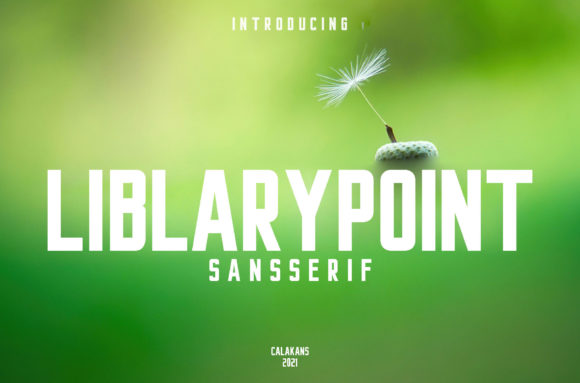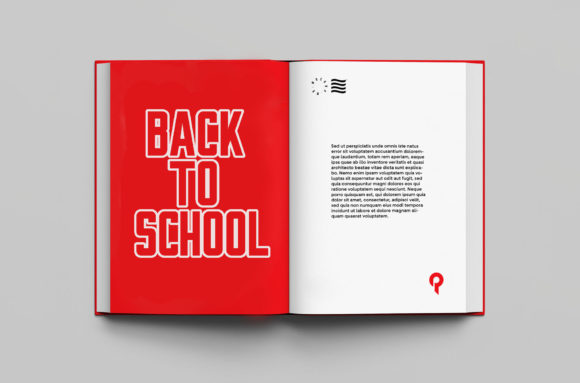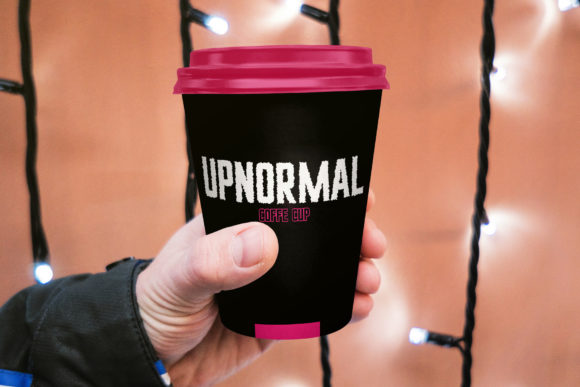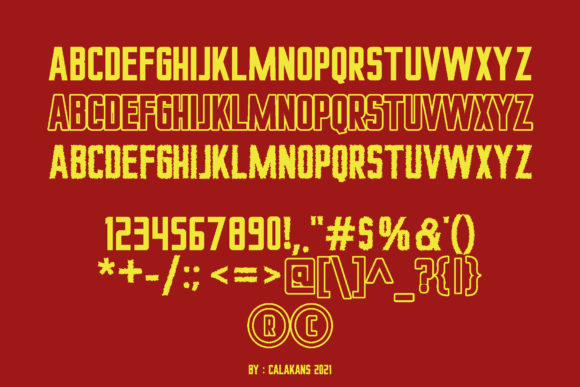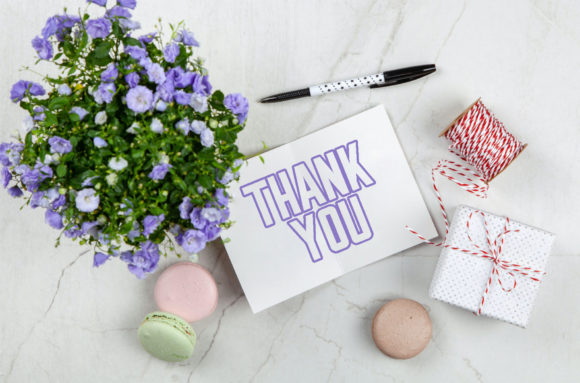
Introduction to Liblarypoint Font
As designers, we’ve all been there – staring at a blank canvas, trying to come up with the perfect font to elevate our creative project. The search for that perfect typography can be a daunting task, but what if I told you there’s a game-changer in the world of sans serif fonts? Enter Liblarypoint Font, a simple yet unique typeface that’s about to become your new go-to design resource.
Imagine a clean, professional font that’s perfect for film posters, headlines, and even logo designs. With its high quality and transparent background, Liblarypoint Font is a valuable addition to any designer’s toolkit. Whether you’re working on a free download or a paid project, this font is sure to make your designs stand out.
- Designed with precision and attention to detail, featuring a clean and modern aesthetic.
- Perfect for designers and artists seeking a unique and creative design element to elevate their work.
Honest Review: Liblarypoint Font
I recently stumbled upon the Liblarypoint Font while searching for a design resource to enhance my creative project. At first glance, I was drawn to its unique and elegant design.
Here’s what I think works well:
- ✨ Transparent background that makes it easy to use with any image
- ⚠️ Limited font styles and weights, which might not be suitable for complex designs
- ⚠️ Some users might find the font a bit too modern or trendy
Overall, I’d say the Liblarypoint Font is a solid design resource that’s perfect for simple creative projects. It’s easy to use, looks great, and is free to download. While it may have its limitations, I’d definitely recommend it to designers looking for a clean and elegant font.
Common Use Cases for Liblarypoint Font
Liblarypoint Font is perfect for:
1. Creating eye-catching headlines and titles.
2. Designing professional-looking presentations and documents.
3. Adding a touch of elegance to creative projects and marketing materials.
Is Liblarypoint Font suitable for high-resolution printing?
Yes, Liblarypoint Font is a high-quality font that’s designed for use in high-resolution printing. It’s perfect for creating business cards, brochures, and other marketing materials that require a professional look and feel. The font’s crisp and clear lines ensure that it will print beautifully on any paper type.